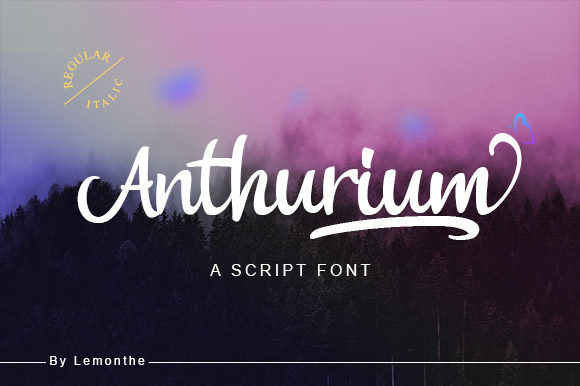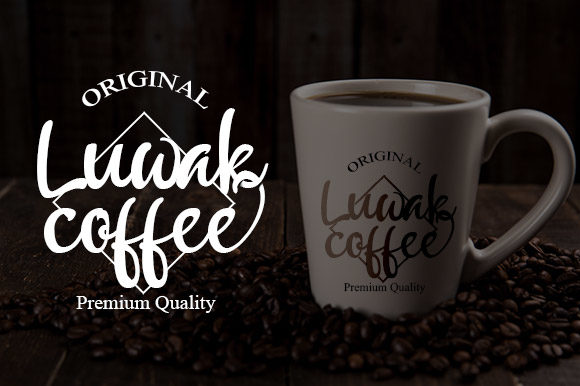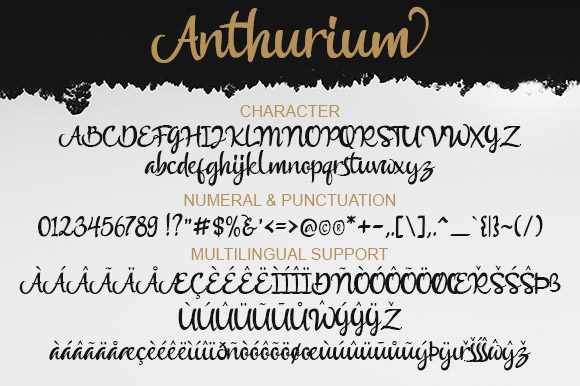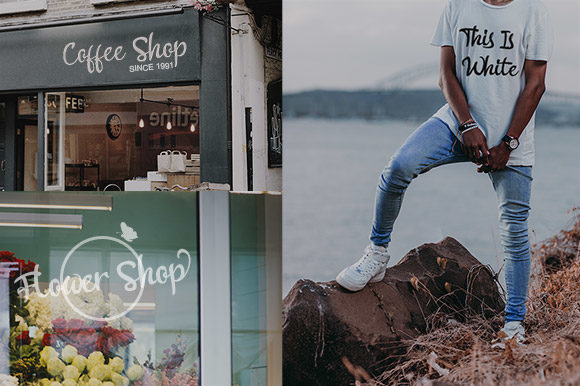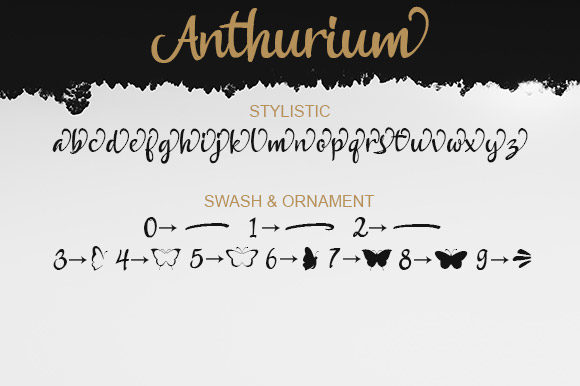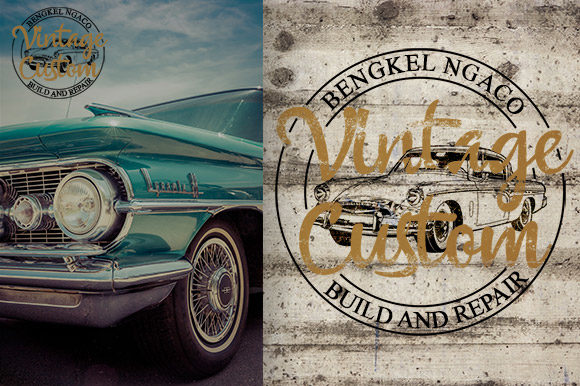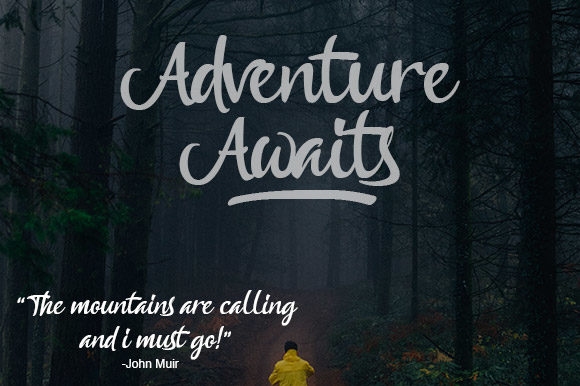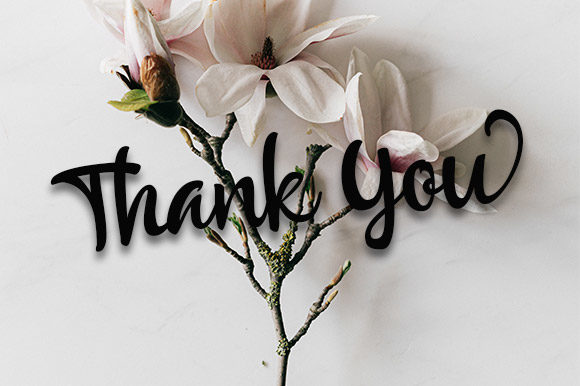
Anthurium Font
About Anthurium Font
Anthurium is a magical handwritten font carefully created with a touch of elegance. This is a beautiful combination of timeless elegance and authentic calligraphy. Use this gorgeous typeface to bring any DIY project to life!